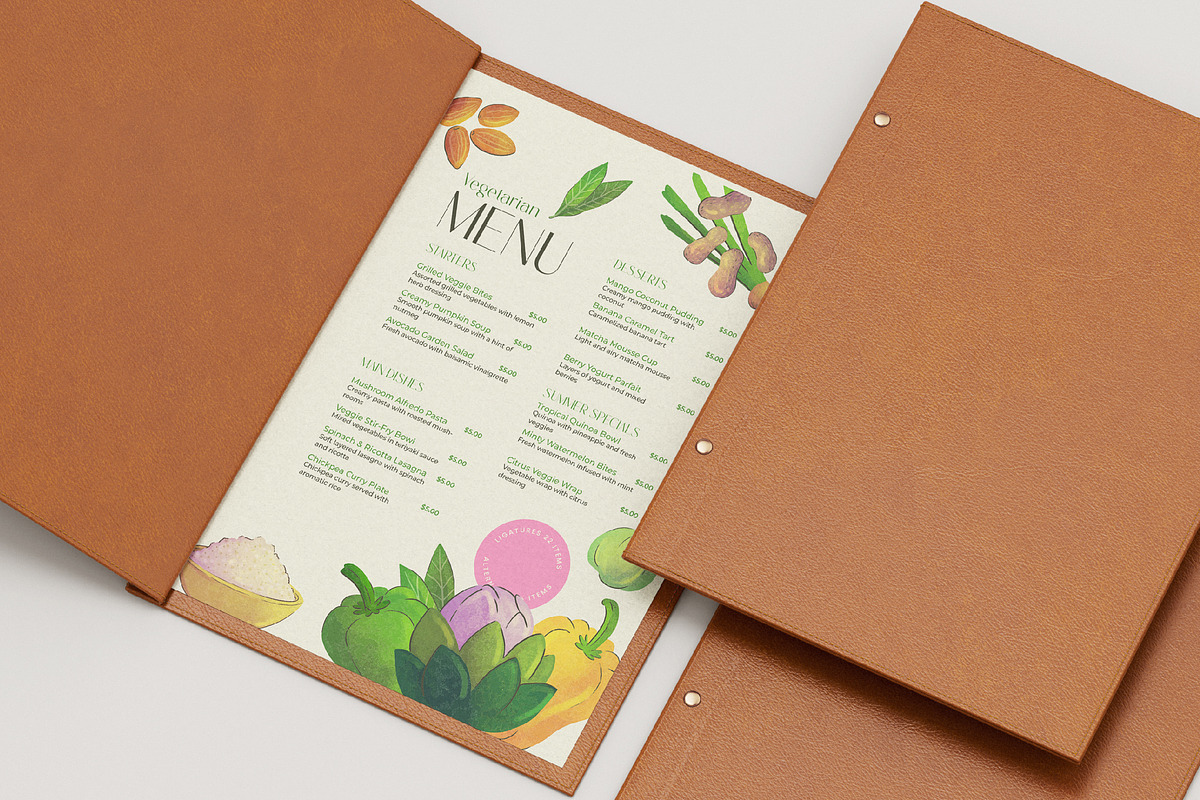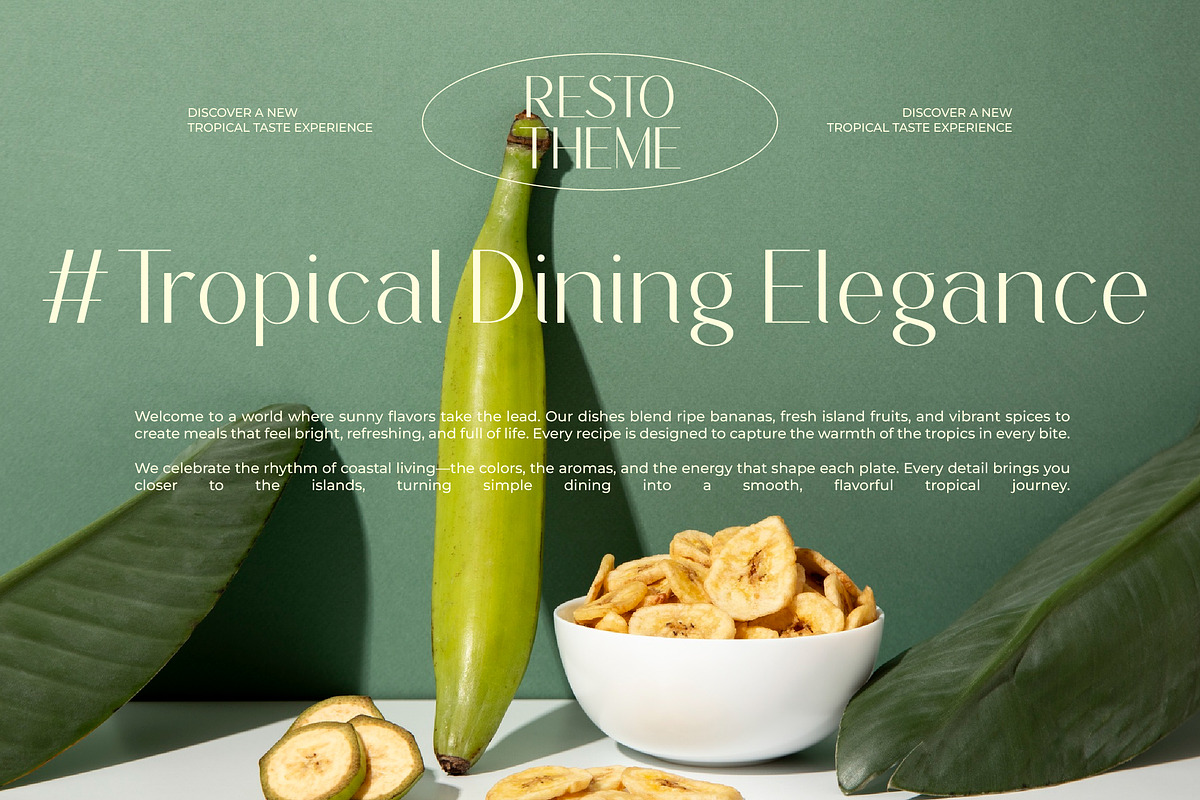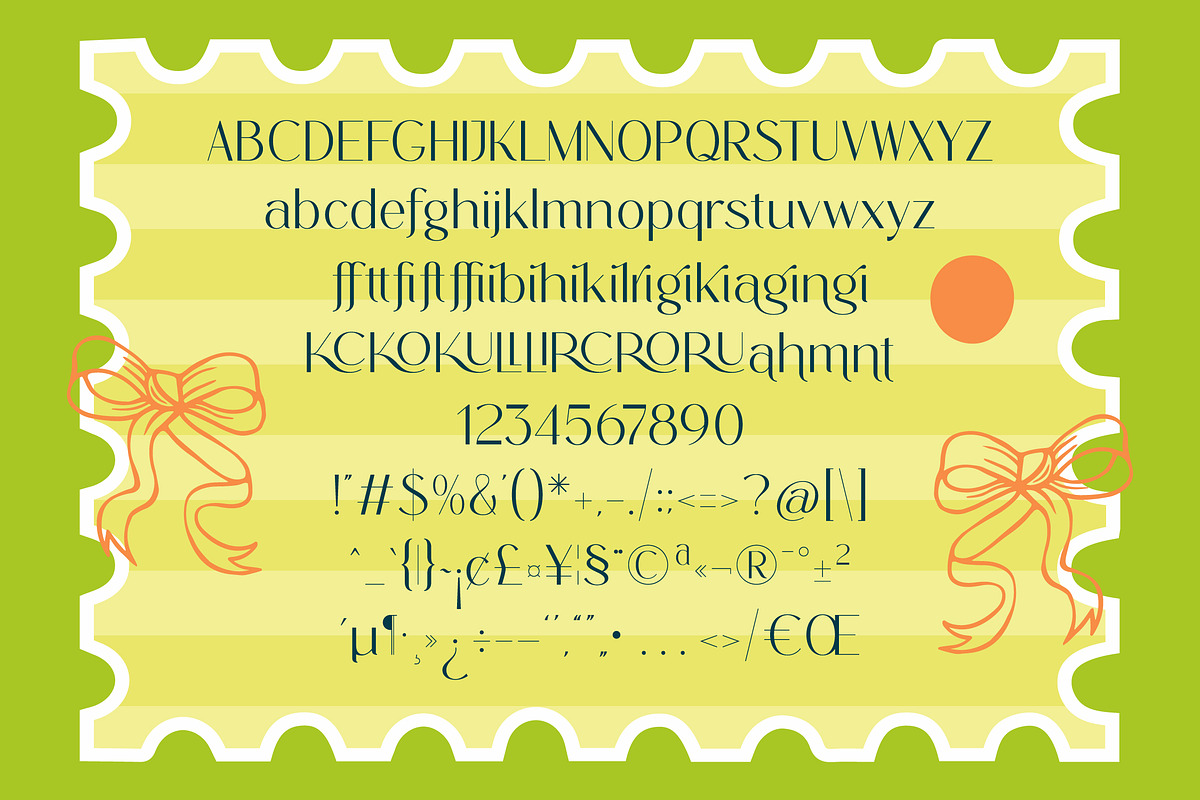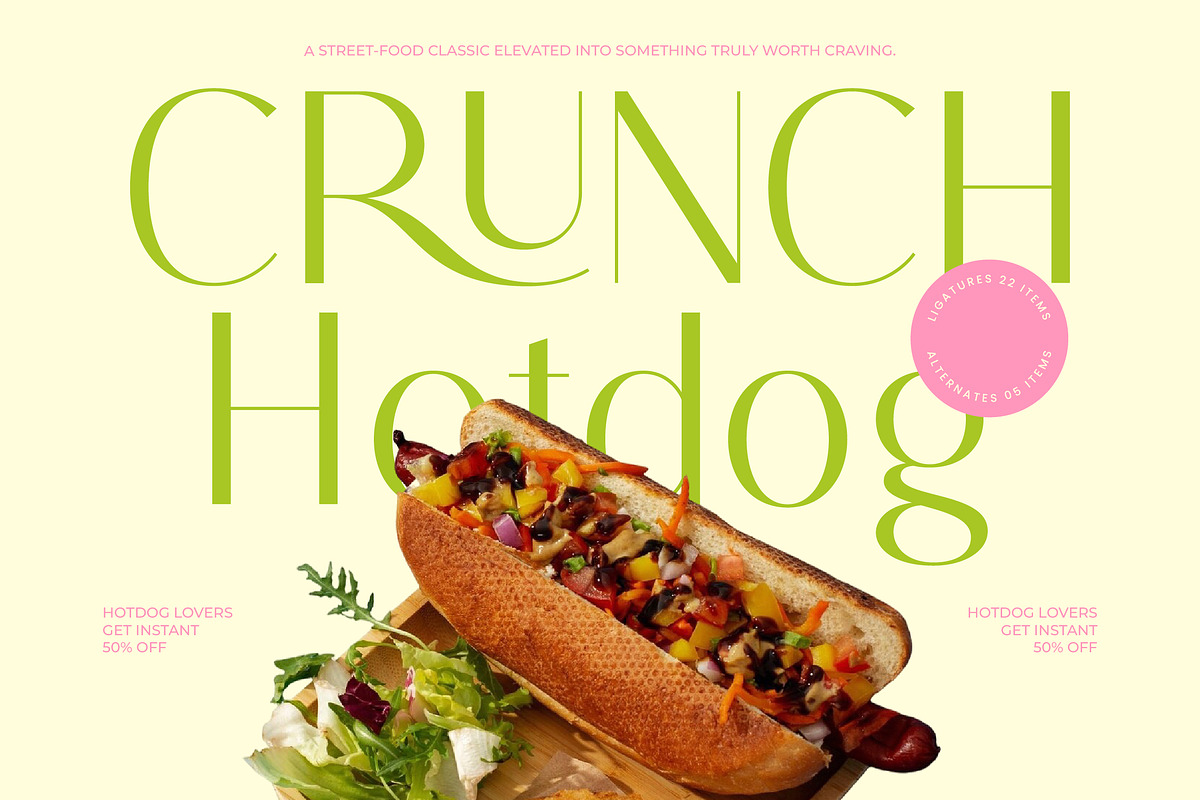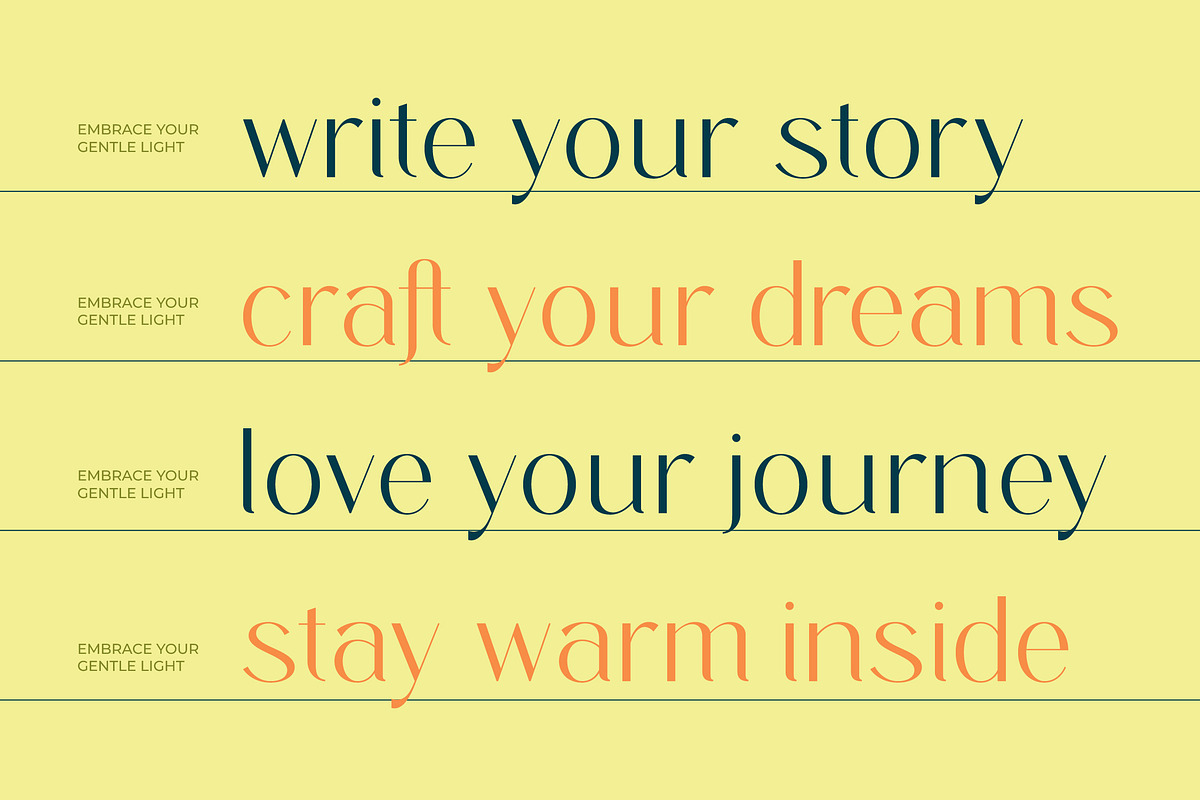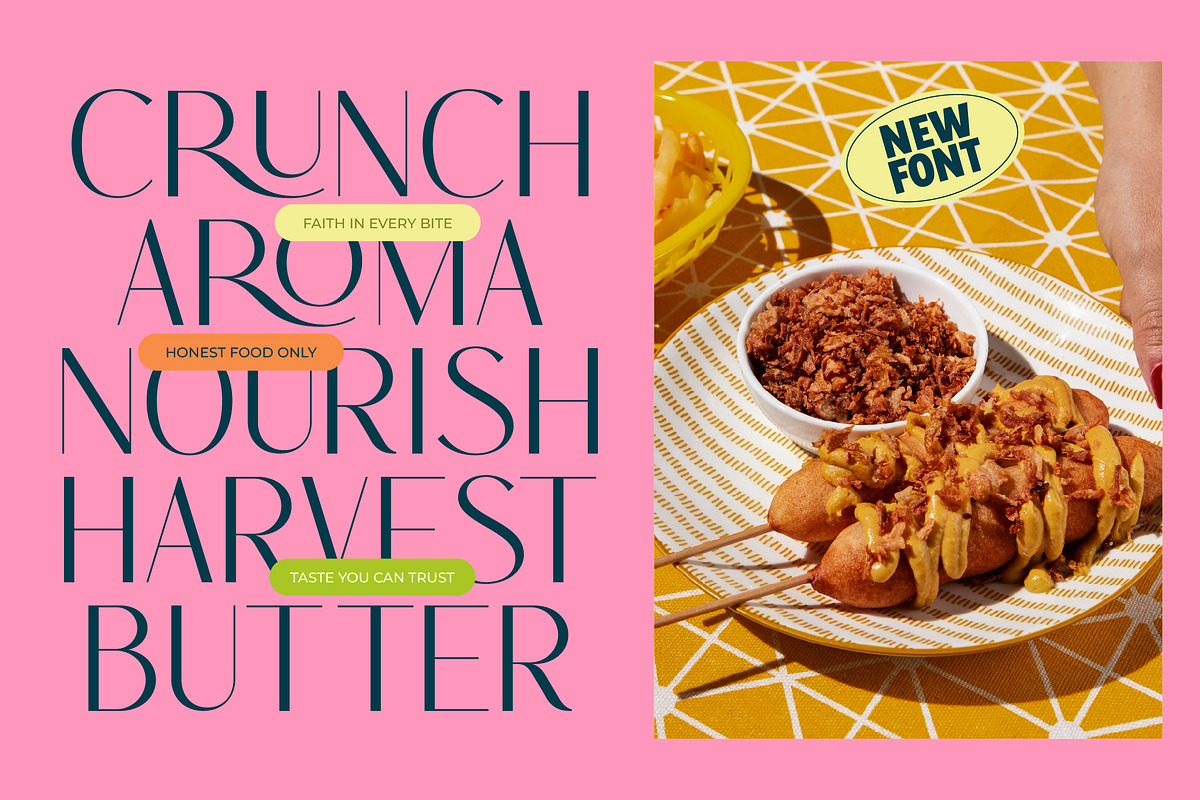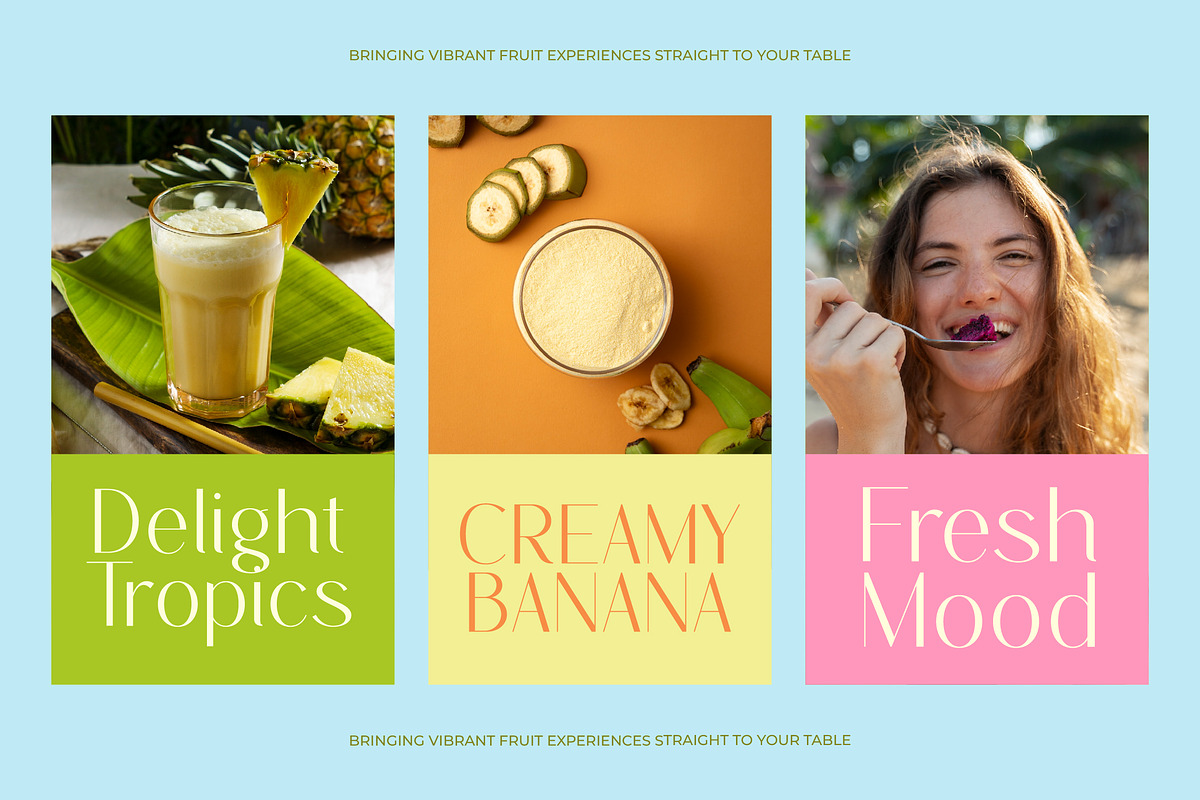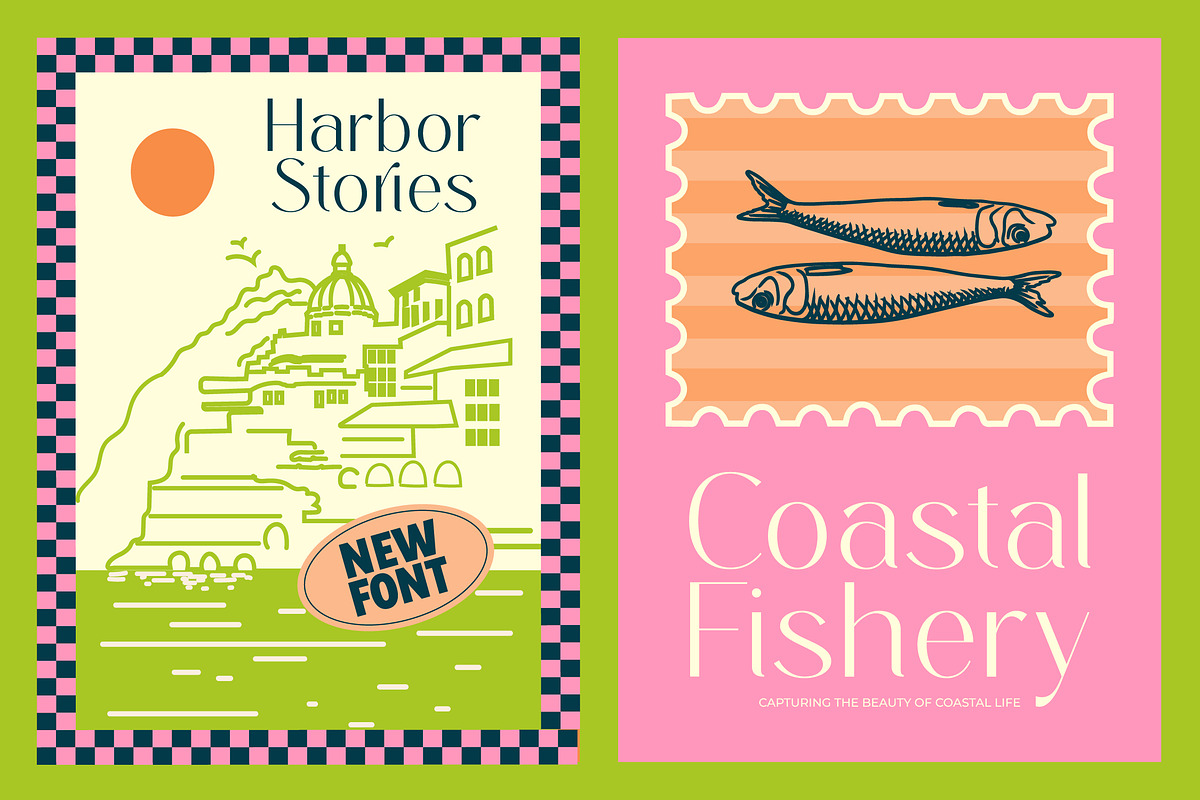
Bromlis Elegant Display Sans Serif
Bromlis is an elegant display sans serif designed with refined geometry, smooth contours, and a clean contemporary edge. It blends modern simplicity with subtle artistic character, creating a typeface that feels polished, versatile, and visually striking. With its balanced proportions and graceful flow, Bromlis brings a sense of sophistication that fits perfectly across branding, editorial layouts, product design, and high-impact display typography.
Elegant, Modern & Display-Ready – Built for standout design moments, Bromlis delivers clarity and style in logos, titles, packaging, and visual identity work. Refined Character Details – Includes 22 ligatures and 5 alternates to help shape distinctive and expressive compositions. Multilingual Support – Equipped with an extended character set for international design usage. Optimized for Print & Digital – Crafted with clean vector outlines for crisp, high-resolution rendering on every platform.